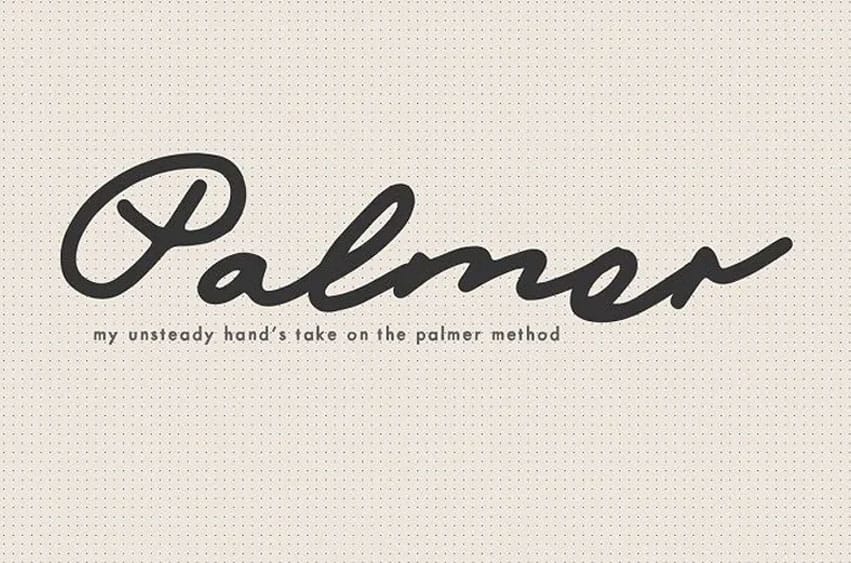
Mix Palmer Script Font is created by Mikko Sumulong, this is a luxury font that can be bought on creativemarket, but it was so good that you could download it for free today. MIX PALMER is my way of writing the palmer method but with a shaky hand. This font is suitable for making a rough scribbled look. Highly appropriate for the establishment of various greeting cards, branding materials, business cards, quotes, posters and more!
The font is ideal for wedding postcard. Or you can design your own logo, blog, stationery, marketing and magazines in a perfect way.